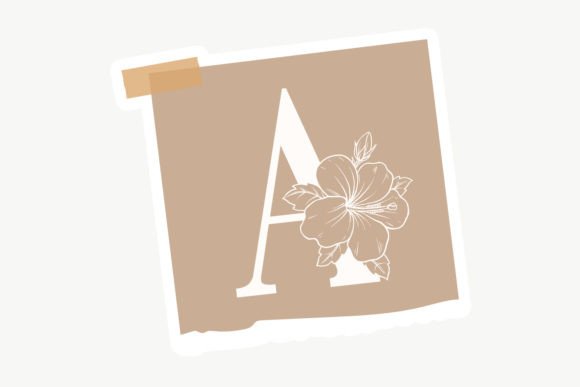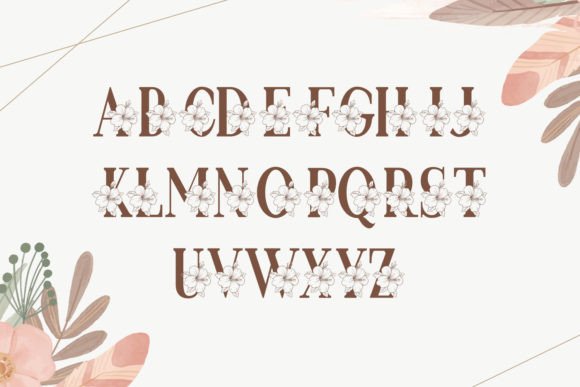
Introduction to Monogram Flower Rosasine Font
Have you ever stumbled upon a font that captures the essence of a special moment, and you just can’t imagine creating without it? For me, that moment came when I was planning a wedding, and I needed a font that exuded love and elegance. That’s when I discovered the Monogram Flower Rosasine Font – a beautiful, high-quality decorative font that adds a touch of romance to any creative project.
As a designer, I know how valuable a great font can be. It’s not just a design element, but a key to setting the tone and mood of a project. The Monogram Flower Rosasine Font is a treasure trove of creative possibilities, whether you’re working on wedding crafts, invitations, greeting cards, or any other design that requires a dash of love and sophistication.
Key Features of Monogram Flower Rosasine Font
- Unique Monogram design with floral elements, perfect for creative projects and design resources.
- Perfect for wedding invitations, event branding, and other creative projects that require a touch of elegance and sophistication.
Honest Review: Monogram Flower Rosasine Font
I recently stumbled upon the Monogram Flower Rosasine Font and I must say it’s a lovely addition to my design resource library. The high quality of this font makes it a great asset for any creative project, whether it’s a simple logo design or a complex branding strategy.
- ✨ Beautifully designed, with intricate details and a unique aesthetic
- ✨ Suitable for a wide range of design projects, from wedding invitations to business cards
However, I did encounter a few limitations while using this font. ⚠️ One major issue is that it can be quite difficult to customize, especially when it comes to resizing. Additionally, some of the characters may not be compatible with certain design software.
Overall, I’m impressed with the Monogram Flower Rosasine Font. It’s a great design resource that can add a touch of elegance to any project. While it may have some limitations, the benefits far outweigh the drawbacks.
Monogram Flower Rosasine Font is ideal for:
- Event graphics and signage